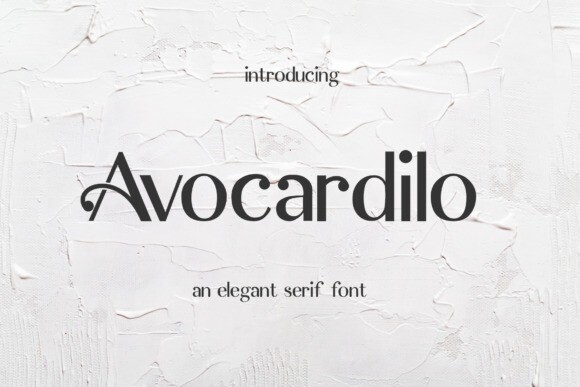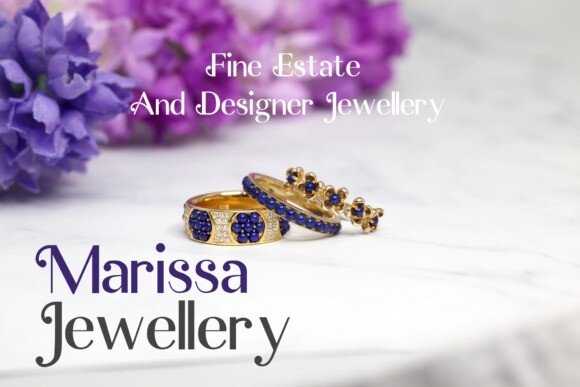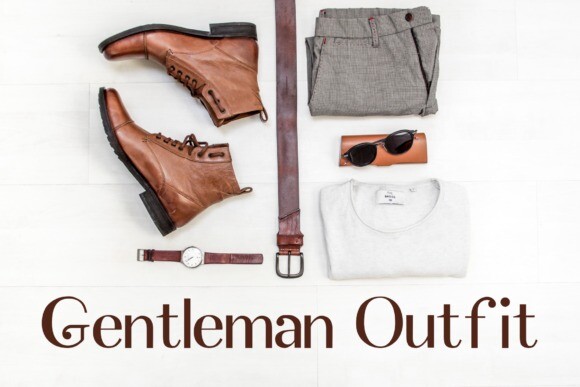
Avocardilo Font
Avocardilo is a bold modern and modern display font.
The unique groove and easy signature style make it perfect to be applied on logos, signatures, quotes, badges, labels, packaging designs, blog headlines and more.